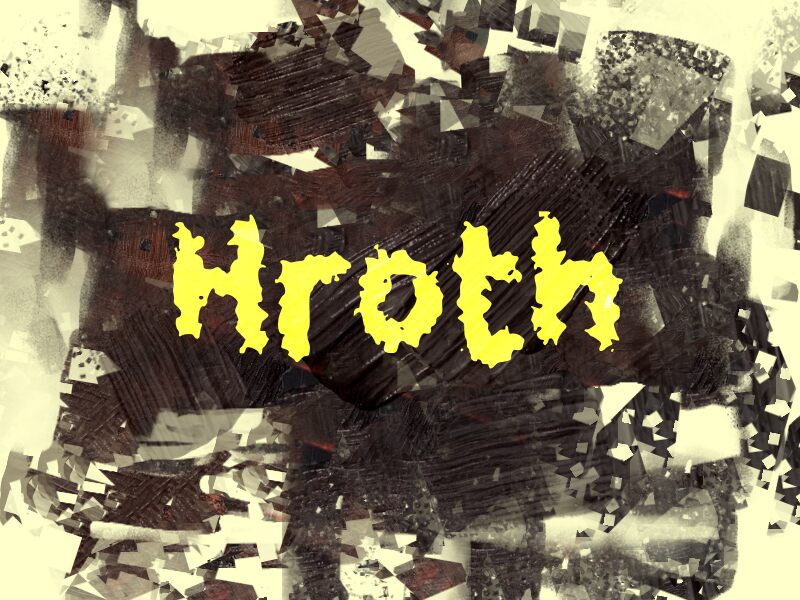
Hroth
Hroth font is a bold script from Wep created in a grunge style featuring high contrast and organic edges. Characterized by its irregular edges, distressed texture, dark vibe, and abstract form that gives it an overall trashed appearance. The free font carries edgy vibes which can enhance your visual graphics no matter the occasion.
Use Hroth in posters, online banners, product packaging, album covers cinema posters, horror games interfaces or even corporate branding.